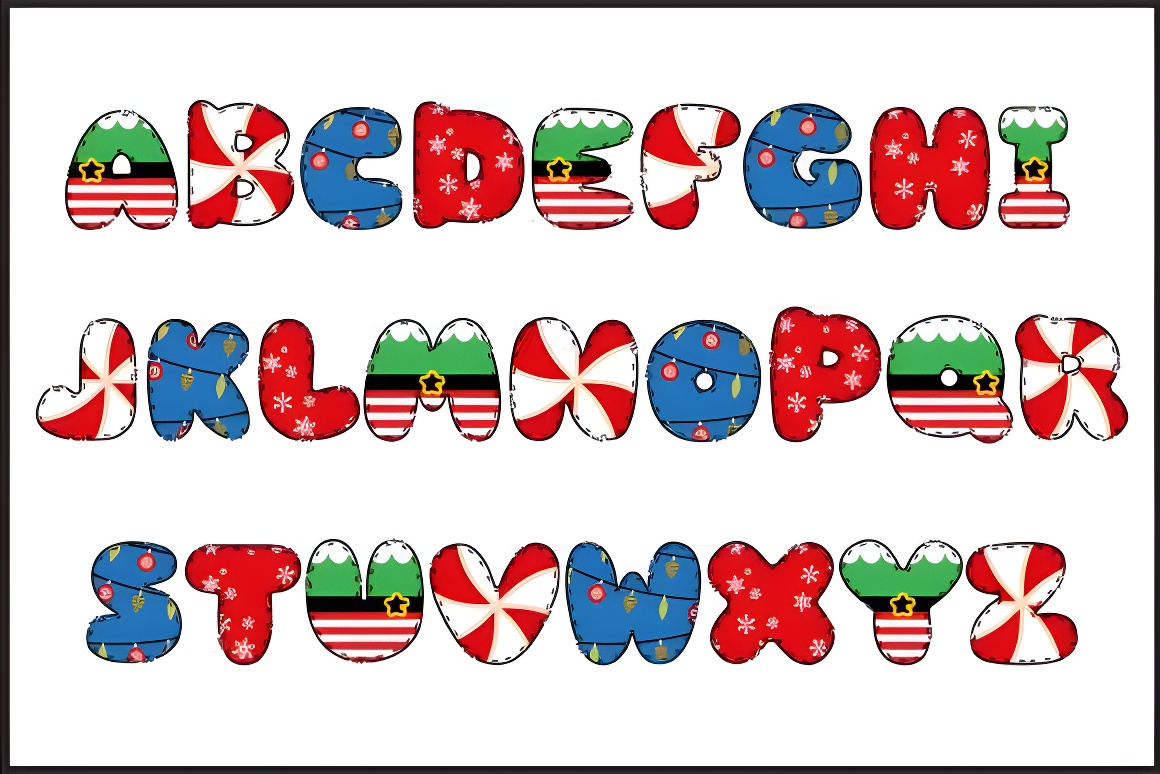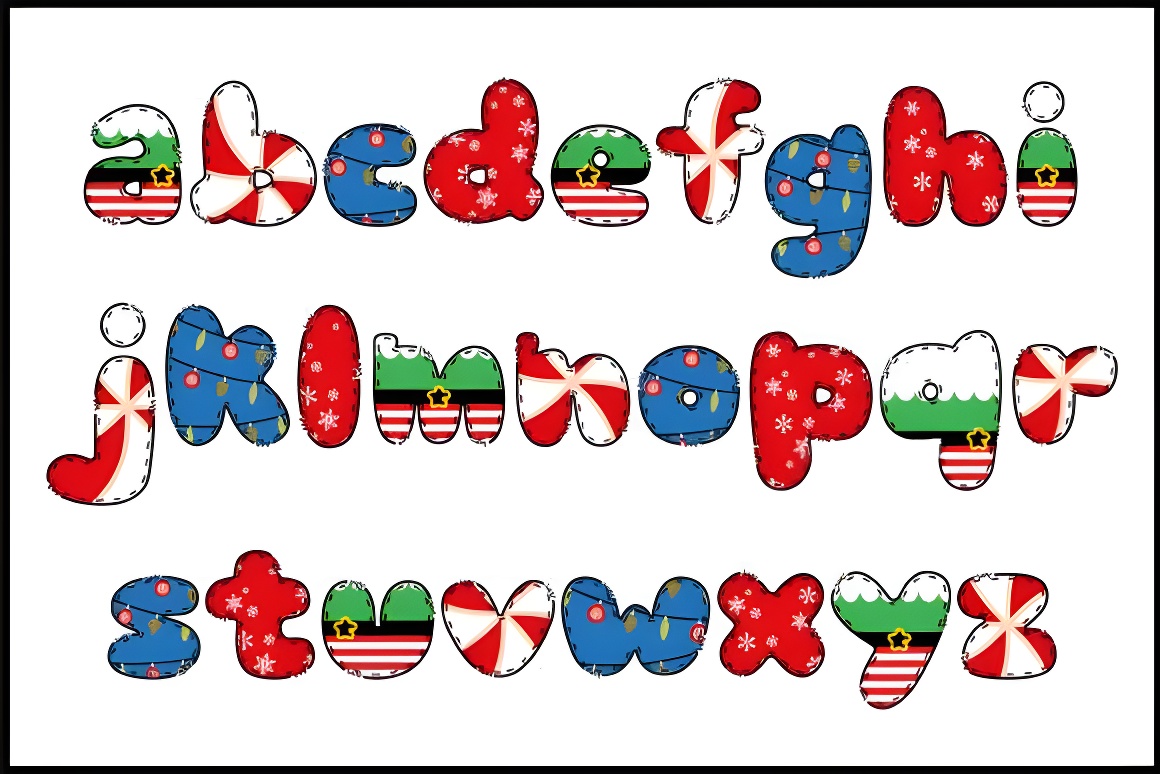
Christmas Eve Whimsical Font - Holiday Font for Cricut & Silhouette (OTF/TTF)
Playful whimsical font perfect for holiday designs, greeting cards, and children's books. Black version works with Cricut, Silhouette, and cutting machines. Color font compatible with Photoshop, Illustrator. Includes OTF/TTF files.